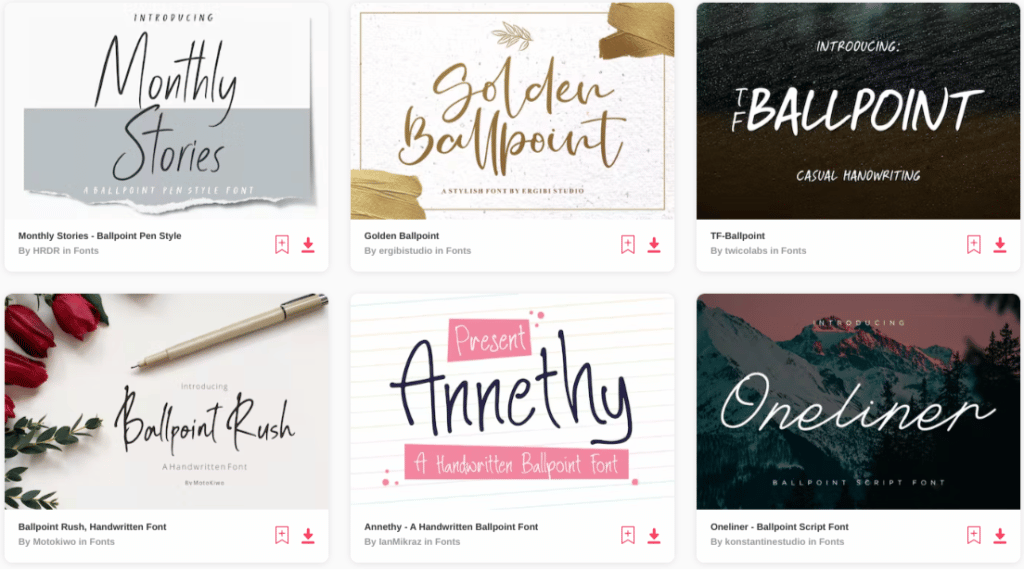
In the field of graphic design, typefaces play an important role. They give you a chance to share your thoughts and represent your feelings in a simple way. There are a variety of fonts available for download, but ballpoint pen fonts are the best option for a natural handwritten feel. These fonts create an elegant image that’s perfect for personal notes and professional designs alike.
These fonts can transform your creative projects and give them a new authentic look. They are versatile and available in thousands of styles. So, you can find or choose a ballpoint font irrespective of the type of project you are working on. Whether you’re looking for uppercase or lowercase letters, you’ll find options that make your work stand out.
However, it can be overwhelming to find the best ballpoint pen font out of thousands of options available.
That’s why we have made a list of the best ballpoint pen fonts in this article. All the fonts listed here are suitable for a wide range of projects. So, you can seamlessly use them in your projects. Also, see our feature on the best signature fonts.
20+ Best Ballpoint Pen Fonts
- Monthly Stories – Ballpoint Pen Style
- Golden Ballpoint Font
- Annethy – Handwritten Ballpoint Font
- Ballpoint Rush Handwritten Font
- Love Junkie
- Wantroys Ballpoint Handwriting Script Font
- Ballpen – Handwritten Signature Font
- Authentive – Marker Font
- Fostone Natural Signature Font
- Romla Font
- Golden Standbury – Casual Font
- Ballpoint Modern Display Font
- Billion Reach – Signature Script
- Ballpoint Pen Font
- Ballpoint Signature Font
- TF Ballpoint
- Oneliner
- Beloved
- Pen Story
- Paperink
20+ Best Ballpoint Pen Fonts for a Natural Hand-Written Feel
1. Monthly Stories – Ballpoint Pen Style
Monthly Stories is a beautiful handwritten font in ballpoint pen or pencil style. The font is great for writing and printing applications. It has plain and bold styles and is easy to read. The elegant look of this font makes it perfect for image, casual notes and formal documents.
You can use this font for packaging, display, and shorter paragraph texts.
2. Golden Ballpoint Font
Golden Ballpoint is a stylish pen or rounded nib font one can find with handwriting style. This font is inspired by branded and elegant stuff and provides an awesome feel. The font is available in two versions, namely regular and italic.
It is great for packaging, advertisements, product design, photography, invitations, etc.
3. Annethy — Handwritten Ballpoint Font
Annethy is a beautiful ballpoint pen font that looks great on any design. You can use this font for branding, invitations, greeting cards, posters, and other creative projects. The font comes in TTF and OTF file formats.
4. Ballpoint Rush Handwritten Font
Ballpoint Rush is a classy ballpoint pen or rounded nib font designed with pen strokes. The font has a handwritten script style that looks very simple and easy to read. It is excellent for casual notes, signatures, branding, song lyrics, etc.
5. Love Junkie
Love Junkie is a handwriting ballpoint pen font with a skinny look. This font has an all-caps version, a regular version, and a dingbat file. You can use the Love Junkie font for logos, social media, stamps, advertisements, quotes, etc.
The font is available in OTF file format.
6. Wantroys Ballpoint Handwriting Script Font
Wantroys is a ballpoint script font in a calligraphy style. This ballpoint pen font is suitable for poster images, branding, quotes, invitations, and other design projects related to images. It also comes with several OpenType features that you can access through different design programs.
It comes with PUA-encoded characters, so you can easily access all the alternate characters. The font includes many glyphs, ligatures, punctuations, alternates, and multilingual support for ease of use.
7. Ballpen – Handwritten Signature Font
Ballpen is a new font with an elegant look. This ballpoint pen font is suitable for various design projects such as quotes, businesses, headlines, advertisements, T-shirts, invitations, fashion designs, invitations, etc. It supports multiple languages and comes in TTF and OTF formats.
8. Authentive – Marker Font
Authentive is a ballpoint signature font designed with a marker pen. This ballpoint pen font is excellent for projects that need a clean handwritten touch. It has a modern look and comes with beautiful ligatures and alternates to create stunning designs.
You will get this font with TTF, OTF, and WOFF file formats.
9. Fostone Natural Signature Font
Fostone is a ballpoint pen font with a signature-style look. The luxurious font comes in 4 styles, namely regular, bold, italic, and Bold italic. You can use this font for branding, watermarks, logos, invitations, and other design purposes.
This font can be used in projects where a natural handwritten touch is needed. It comes in OTF and TTF formats and works on PC and Mac. The font is also compatible with Photoshop, InDesign, Illustrator, Corel Draw, and Microsoft Word.
10. Romla Font
Romla is a stylish ballpoint-style font with an elegant look. This font is suitable for logos, quotes, invitations, advertisements, and more. You can access all alternate characters of this font because it includes PUA-encoded characters.
The font also includes OpenType features along with uppercase & lowercase letters, punctuations, and numbers.
11. Golden Standbury — Casual Font
Golden Standbury is a modern signature font with a ballpen style. The font looks elegant and is suitable for a wide range of designs. You can use this ballpoint pen font for logos, quotes, advertisements, posters, etc.
It supports multiple languages and comes in TTF and OTF formats.
12. Ballpoint Modern Display Font
Ballpoint is a modern handwritten ballpoint pen font that can be used for a wide range of design projects. It is great for logos, branding, T-shirts, book covers, packaging, product design, watermarks, invitations, etc.
It comes with OTF, TTF, and WOFF formats for ease of use.
13. Billion Reach — Signature Script
Billion Reach is a stunning handwritten script font with a natural handwriting feel. The ballpoint pen font comes with stylistic alternates and ligatures to improve the look.
It is excellent for logos, books, invitations, packaging, fashion designs, stationery, novels, labels, etc. Since the characters are PUA encoded, you can easily access all alternates.
14. Ballpoint Pen Font
Ballpoint Pen font is a new font with beautiful looks. The font comes in OTF and TTF formats and comes with commercial licensing. The characters of this font look as if they are written with a ballpoint pen and are easy to understand.
They are suitable for designs that need a handwritten touch.
15. Ballpoint Signature Font
Ballpoint Signature is a natural ballpoint handwriting font with a luxurious look. The font looks stylish and is highly versatile for use in various designs. The ballpoint pen font has smooth lines, varying baselines, stunning alternates, and gorgeous glyphs.
It is available in OTF, TTF, and WOFF file formats.
16. TF Ballpoint
TF Ballpoint Pen font is a casual handwriting pen. This font is best for calligraphy and handwriting. This font takes its inspiration from real-life handwriting. This font can be digitally traced and adjusted, which is a adding advantage.
This font is the ideal one that can be used for projects that require a niche of handwriting text. The font also provides multilingual support.
17. Oneliner
Oneliner is a ballpoint pen font that works best in calligraphy and handwriting. This font comes with a beautiful cursive style and is attractive in design. The look of the font makes it appear feminine in design.
This makes it suitable for feminine designs such as fashion, wedding designs, etc.
The font comes in uppercase, lowercase letters, numbers, symbols, and punctuation marks.
18. Beloved
If you are looking for a ballpoint pen font that suggests a romantic spirit, then Beloved script is the best ballpoint font you can find. This font’s monoline strokes evoke classic 20th-century penmanship achieved with a ballpoint or rounded nib.
Most digital script typefaces impose simple “on or off” rules about character connections. That is not the case for this ballpoint pen font.
The Beloved script embodies a natural state of handwriting where the reader will hardly know that it is a digital font.
With over 1,000 swashes and alternates to choose from, including capitals, beginning, and ending forms, Beloved is powerful for custom headlines and wordmarks.
It also includes regular and bold weights.
19. Pen Story
Writing with different kinds of pens evokes different emotions. For example, if you’re looking to add a splash of color to any of your projects, marker pens are the right choice for you. However, if you want to make a bold statement, gel pens are what you need.
Similarly, if you’re just looking for a simple pen for casual, everyday use, then ballpoint pens are your best option. The Pen Story font understands that well.
The Pen Story font is a casual handwriting font. Its casual font with pen strokes is perfect for quote text, storylines, social media, kids’ projects, and many more.
This font contains uppercase, lowercase, number, and punctuation, making it a go-to causal ballpoint pen font.
20. Paperink
The Paperink Handwriting Color SVG Font, a sophisticated blend of charm and elegance.
It offers two vibrant color options, blue and black while maintaining the authentic feel of hand-drawn typography.
This font also includes a vector regular style, providing versatility for various design projects. Perfect for invitations, posters, and social media graphics, it adds a unique touch to your creations.
21. Quentty
Quentty Script is a beautiful handwritten font that brings a personal touch to any design. It’s perfect for projects like logos, branding, invitations, product packaging, and more. With its smooth, flowing script, this font adds an elegant, handmade feel to your work.
Ideal for everything from greeting cards to book covers, Quentty Script is versatile and easy to use, making it a great choice for adding that ballpoint pen style to your next project.
Frequently Asked Questions
What do you mean by ballpoint pen font?
The appearance of the font plays a vital role in any form of design. This will pass on your thoughts and feelings in a simple way. Ballpoint Pen font is one such font that comes in a classic handwritten style. These fonts can work in many creative projects that will give an original look.
What is the advantage of having a handwritten font?
Handwritten font helps you to have a personal touch to designs. These are the fonts that you may use where you can pass on your personal messages.
Are handwritten fonts legible in small sizes?
The legibility of handwritten fonts in small sizes can vary depending on the specific font design. It’s a good practice to test the font at different sizes to ensure it remains clear and readable. Some handwritten fonts are designed to be more legible at smaller sizes, while others are best suited for larger headlines.
20+ Best Ballpoint Pen Fonts Summary
As discussed above, ballpoint pen fonts are beautiful, elegant, and suitable for a wide range of designs. So, you can consider using ballpoint pen fonts in your upcoming projects to add uniqueness to your work.